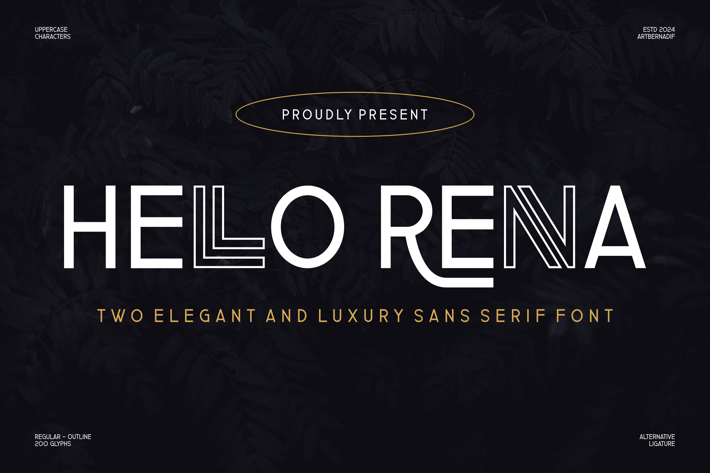
Hello Renna - Elegant And Luxury Sans Serif Font
Introducing our new product Hello Renna Font Elegant And Luxury Sans Serif Font
Hello Renna Font Modern Font is a Elegant And Luxury display font. The font is suitable for any branding project like logo, t-shirt printing, esport, and many more.
outstanding in a wide range of contexts.
Hello Renna Uppercase
Hello Renna Alternative
* Hello Renna Ligature